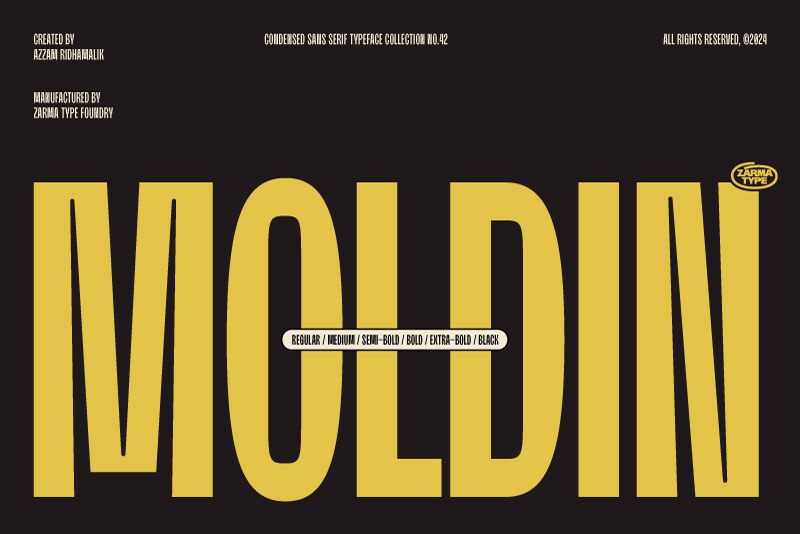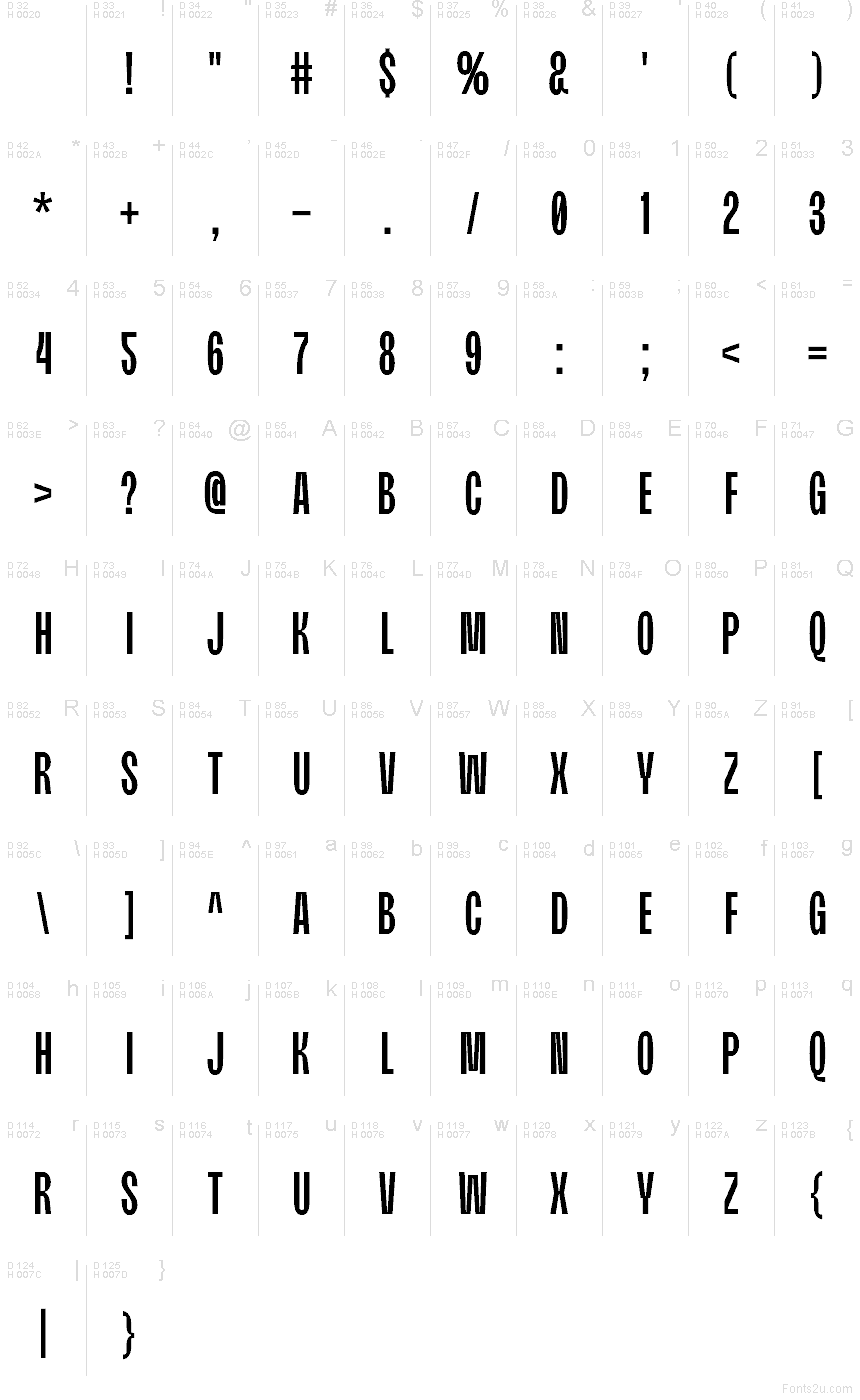
Moldin font by Muhammad Azzam Ridhamalik of Zarma Type is a free condensed sans serif font with a hard, upright stance and chunky strokes that feel stamped and industrial. Its tall proportions pack a lot of impact into a narrow space, so your message reads loud without eating up the layout. The rhythm is tight and steady, giving headlines a confident, no-nonsense punch.
Using Moldin shines on posters, streetwear branding, album covers, sports graphics, packaging labels, event flyers, and social ads where you want instant clarity. Set Moldin large with a bit of breathing room around it, then pair it with a clean, lightweight sans for body copy to keep the contrast crisp in this free font.